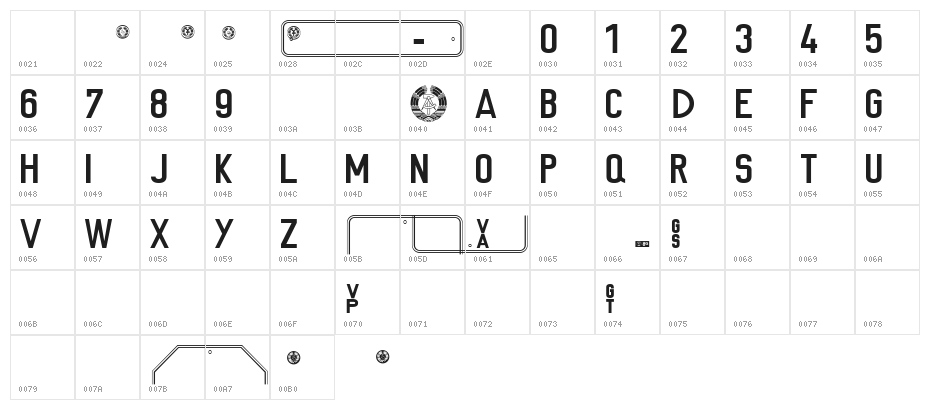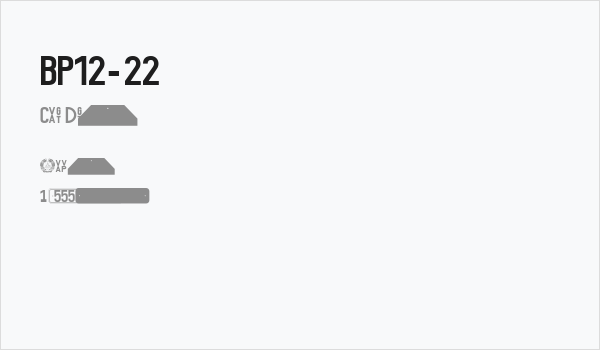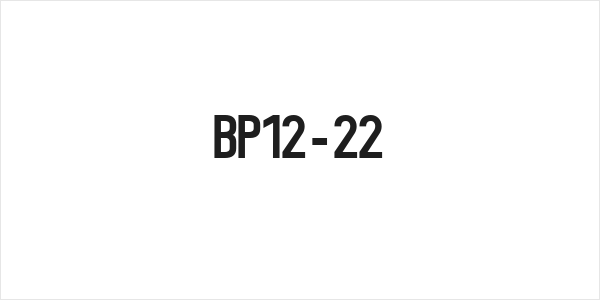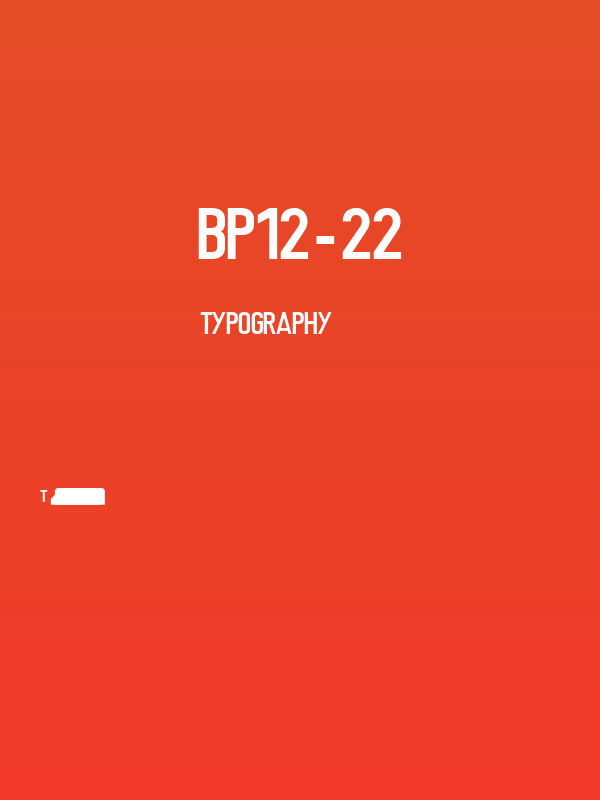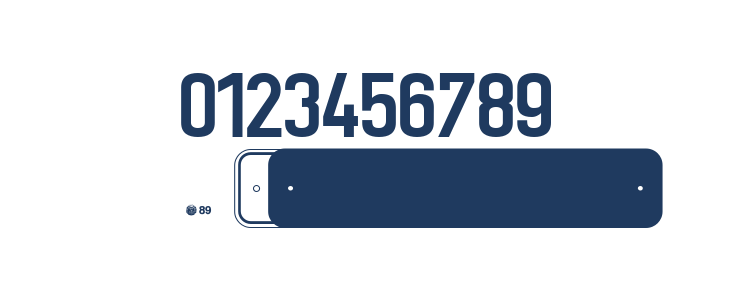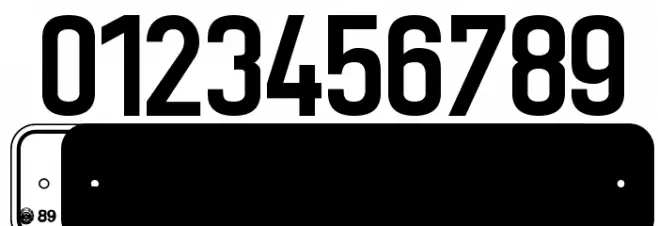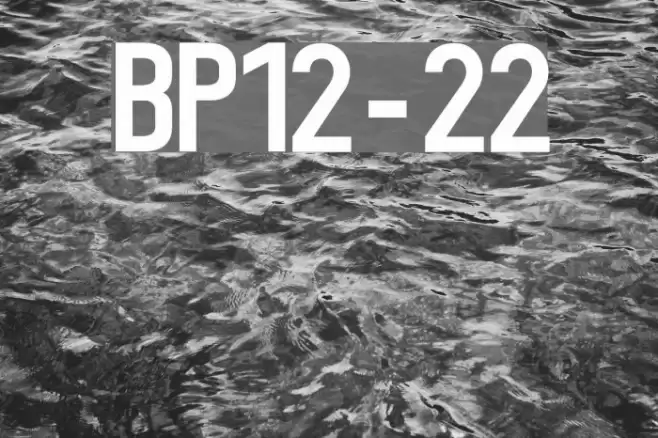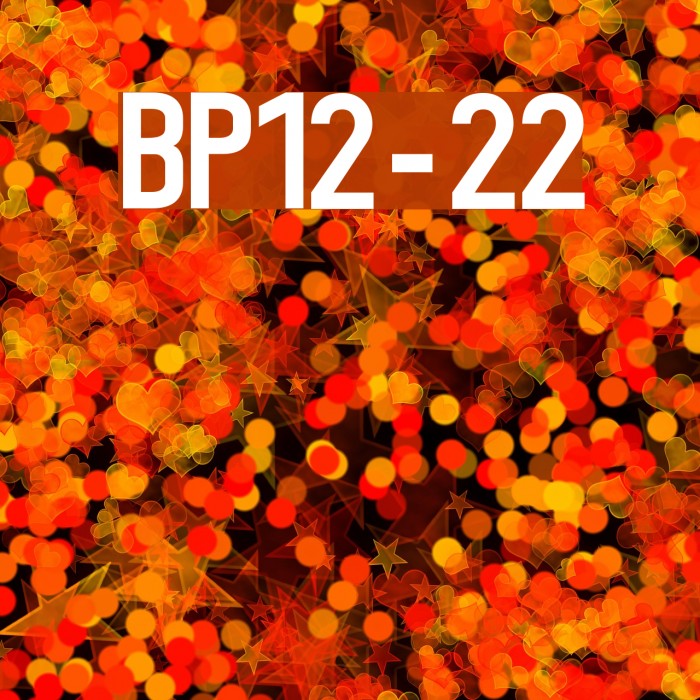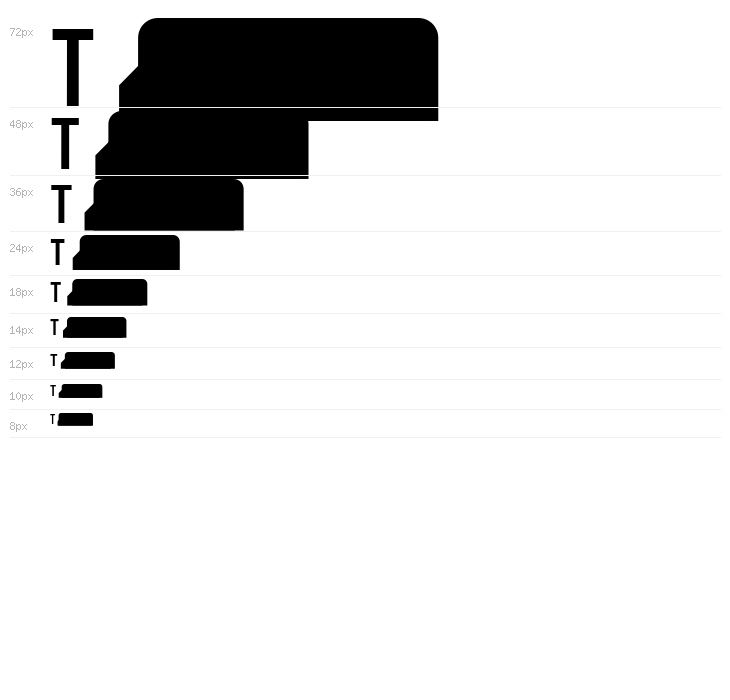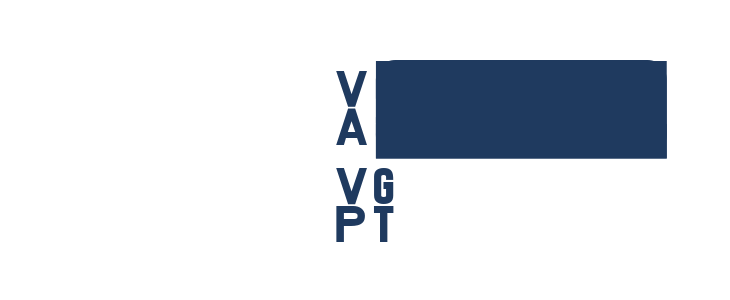
BP12-22 Font
BP12-22 Description
This font features a bold, sans-serif style with clean, geometric lines and a modern aesthetic. The uppercase letters are uniform in height, creating a cohesive and structured appearance. The numerals are equally bold and consistent, ensuring readability and impact. The font's design is straightforward, with minimal embellishments, making it versatile for various applications. The characters are evenly spaced, contributing to its legibility. This font is ideal for projects that require a strong, contemporary look, such as branding, signage, and digital media.
| Use Case | Headlines, Logos, Signage |
| Proposed Projects | Ideal for branding, signage, digital media, and advertising. |